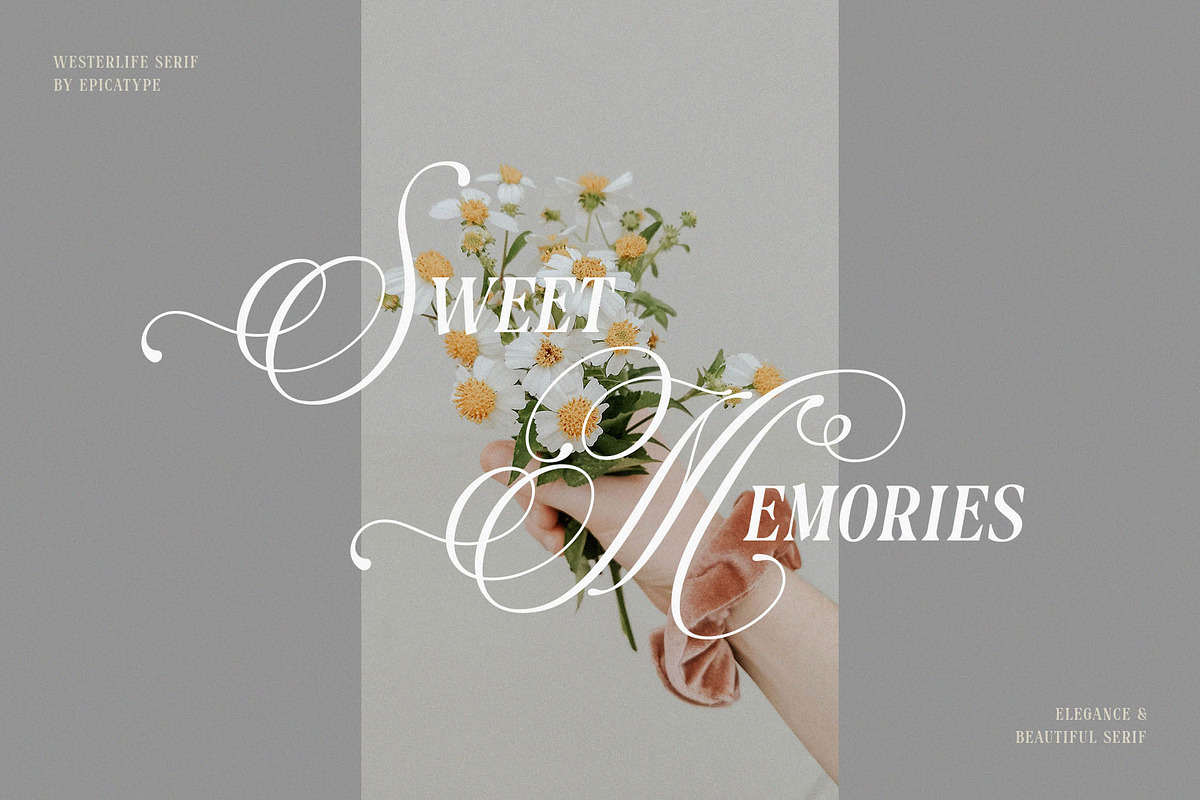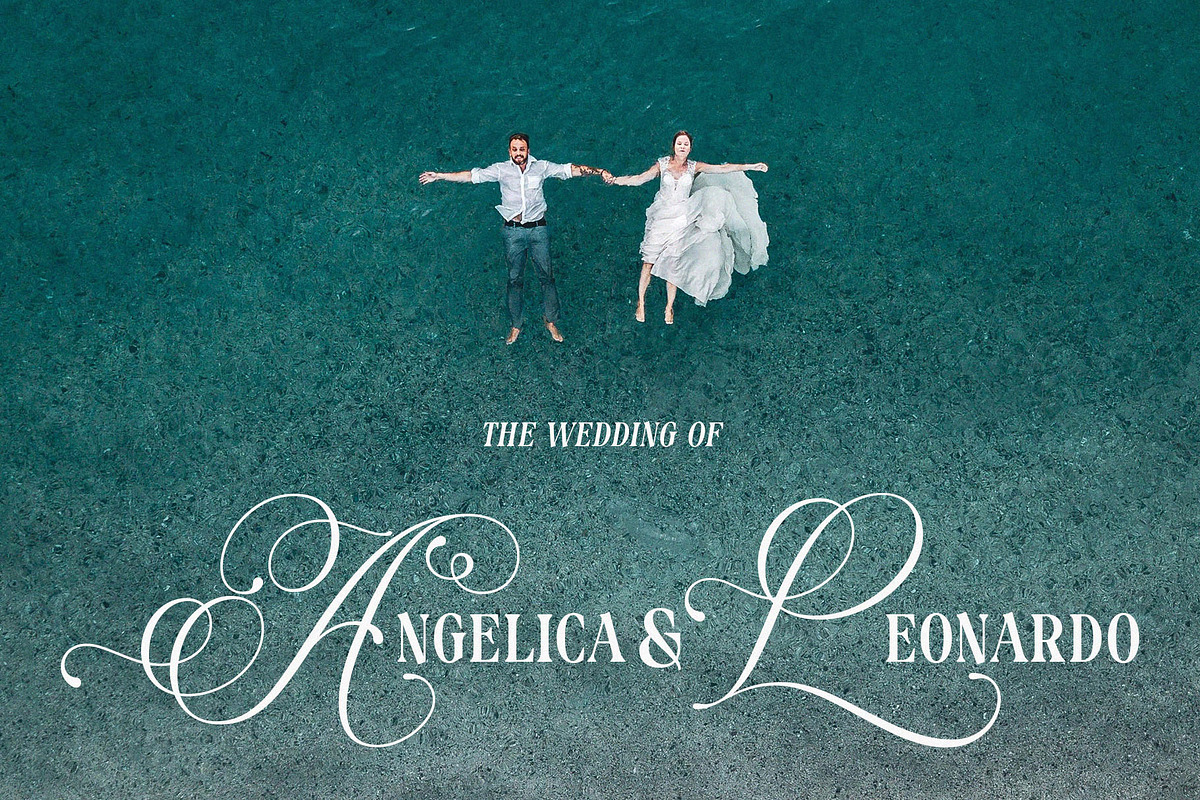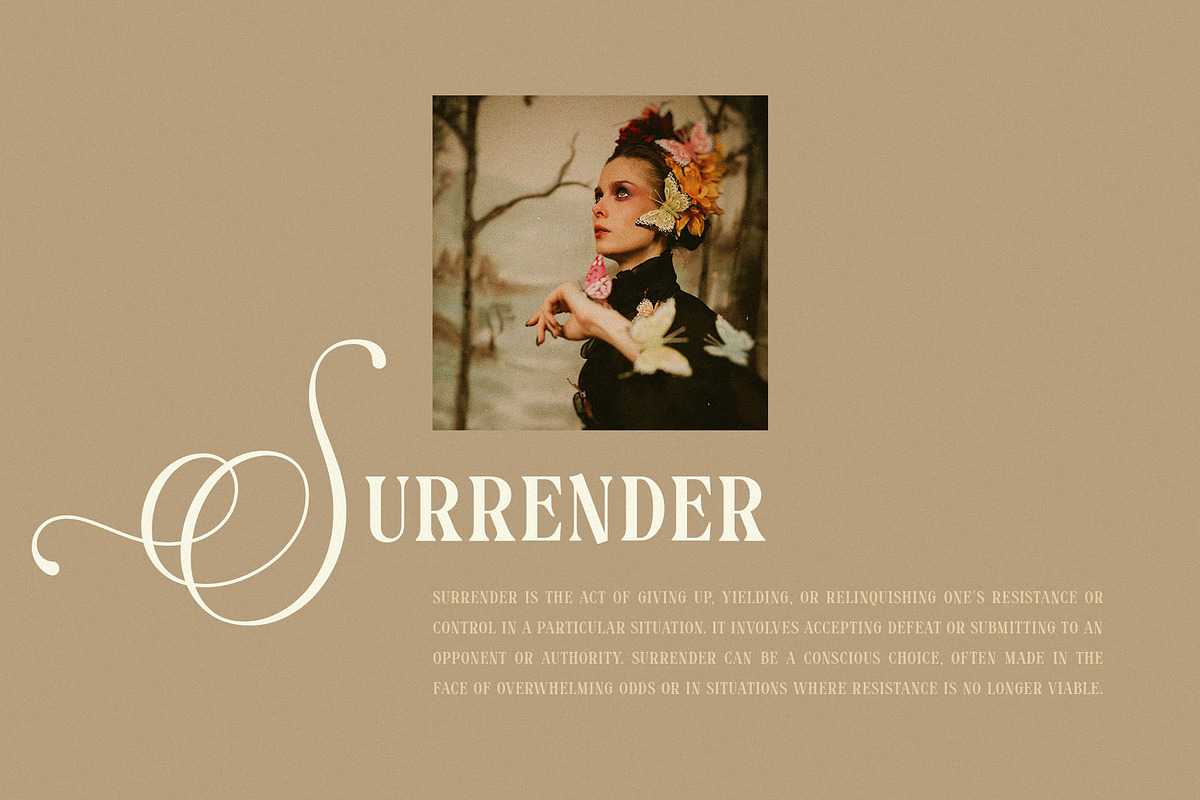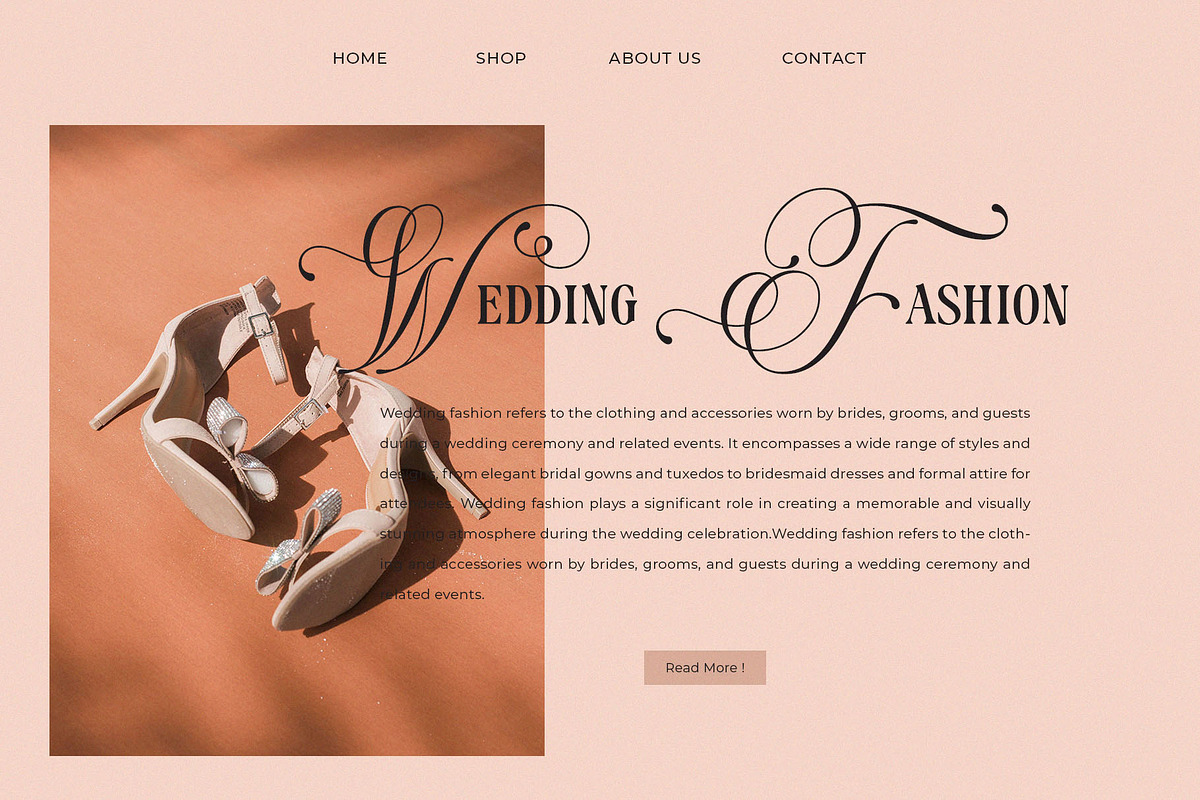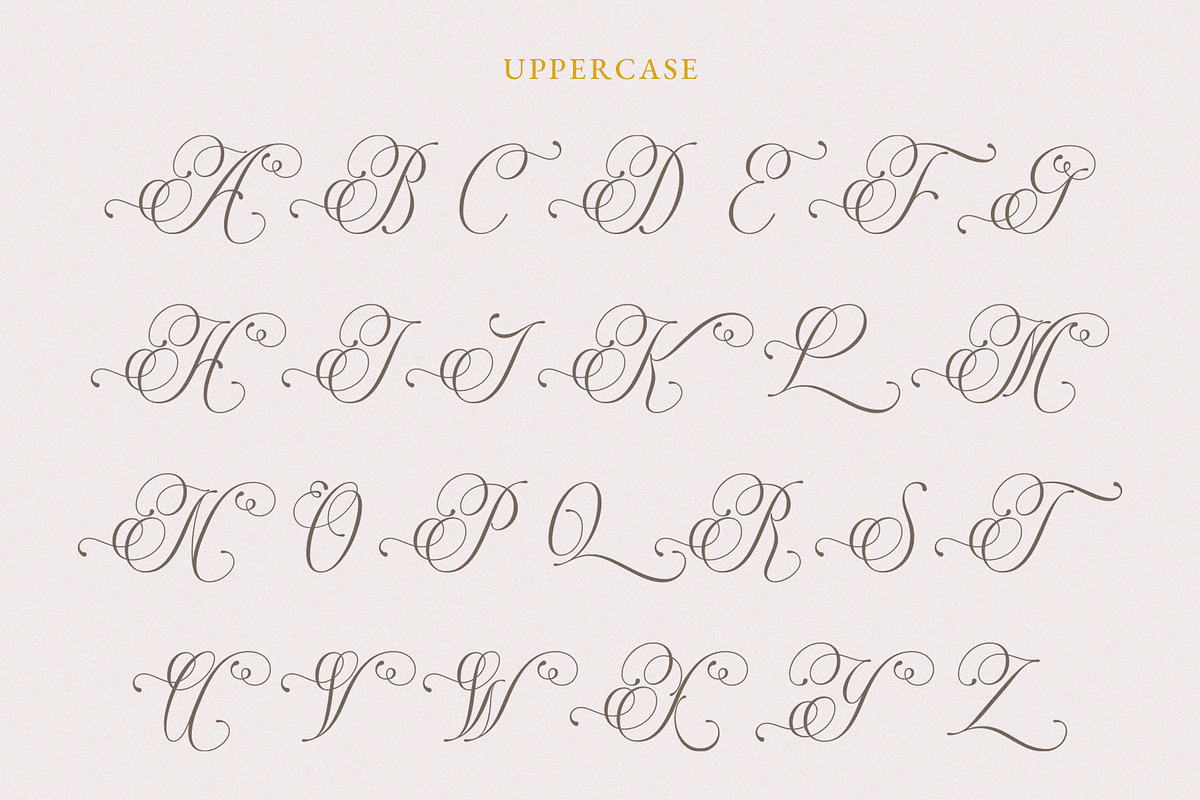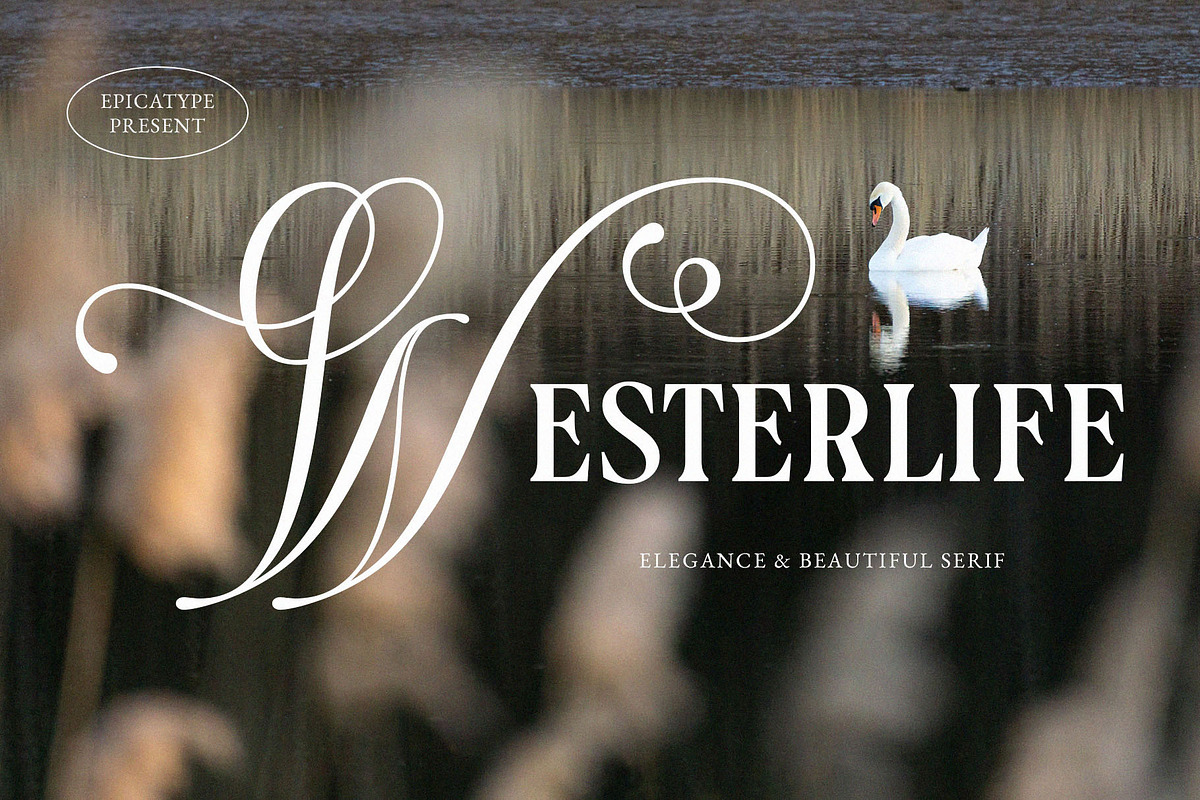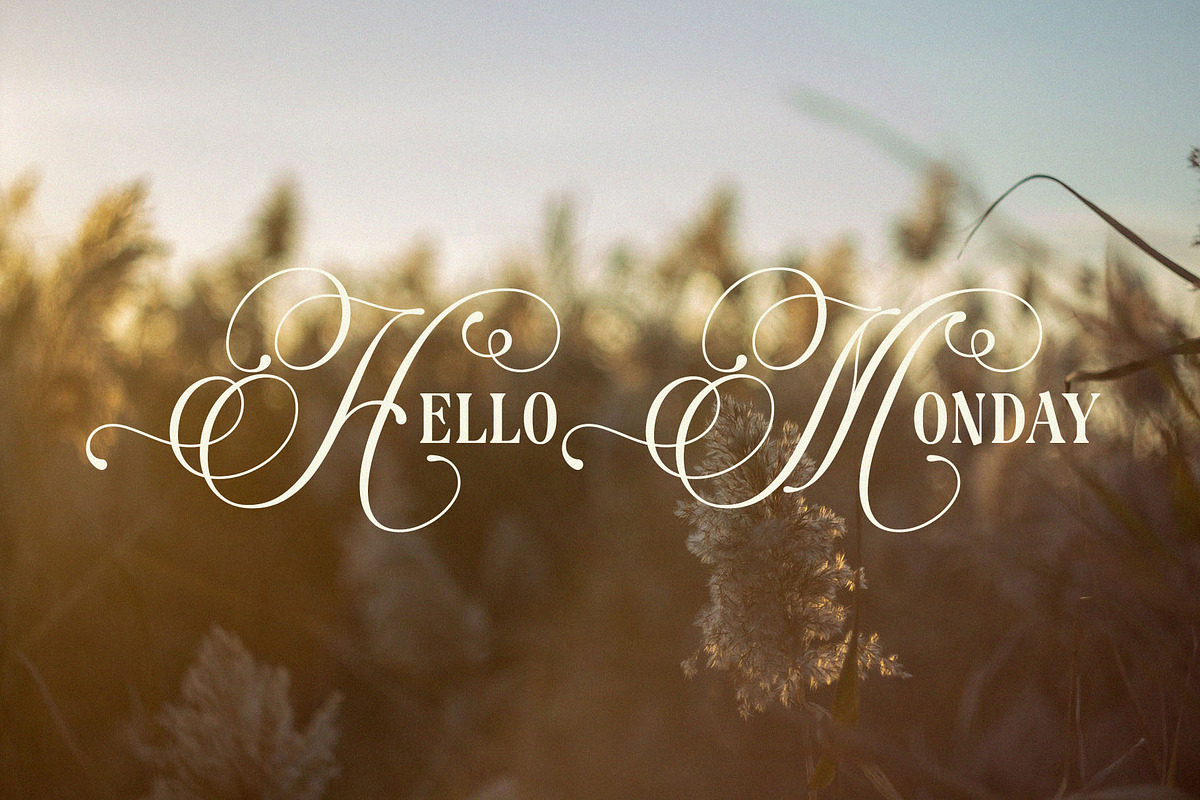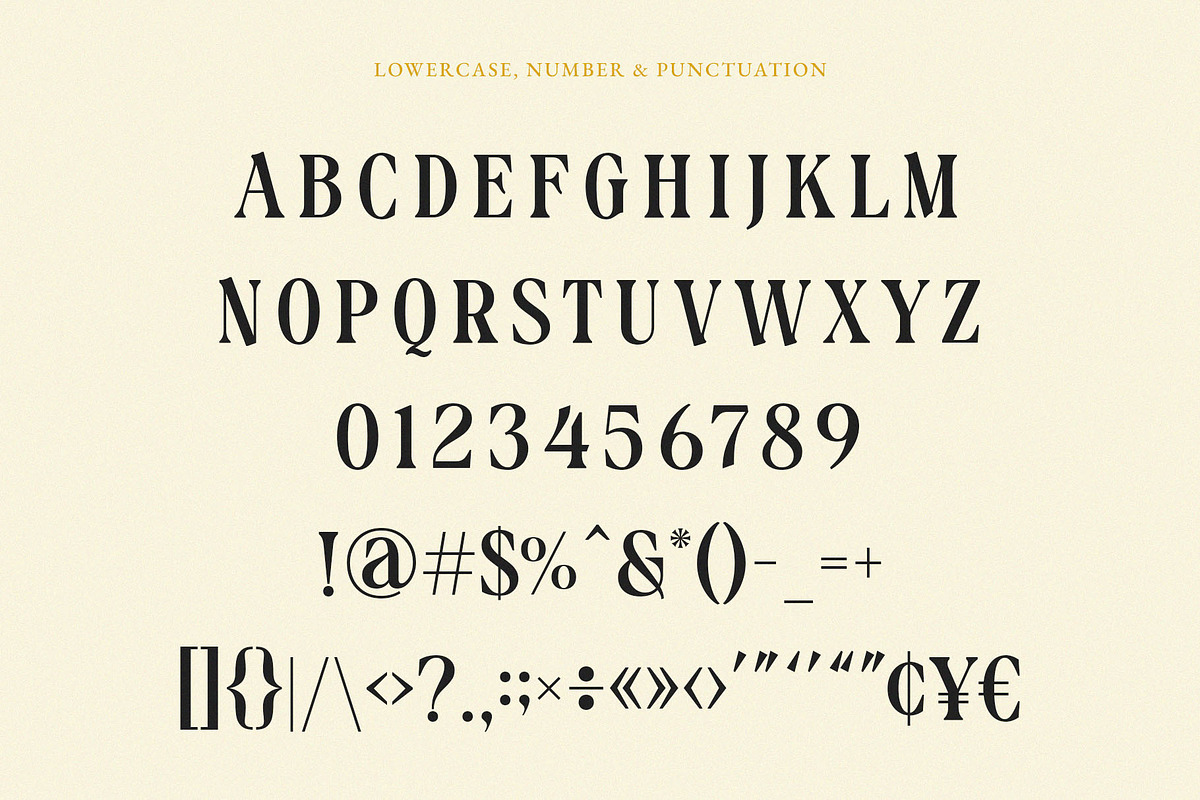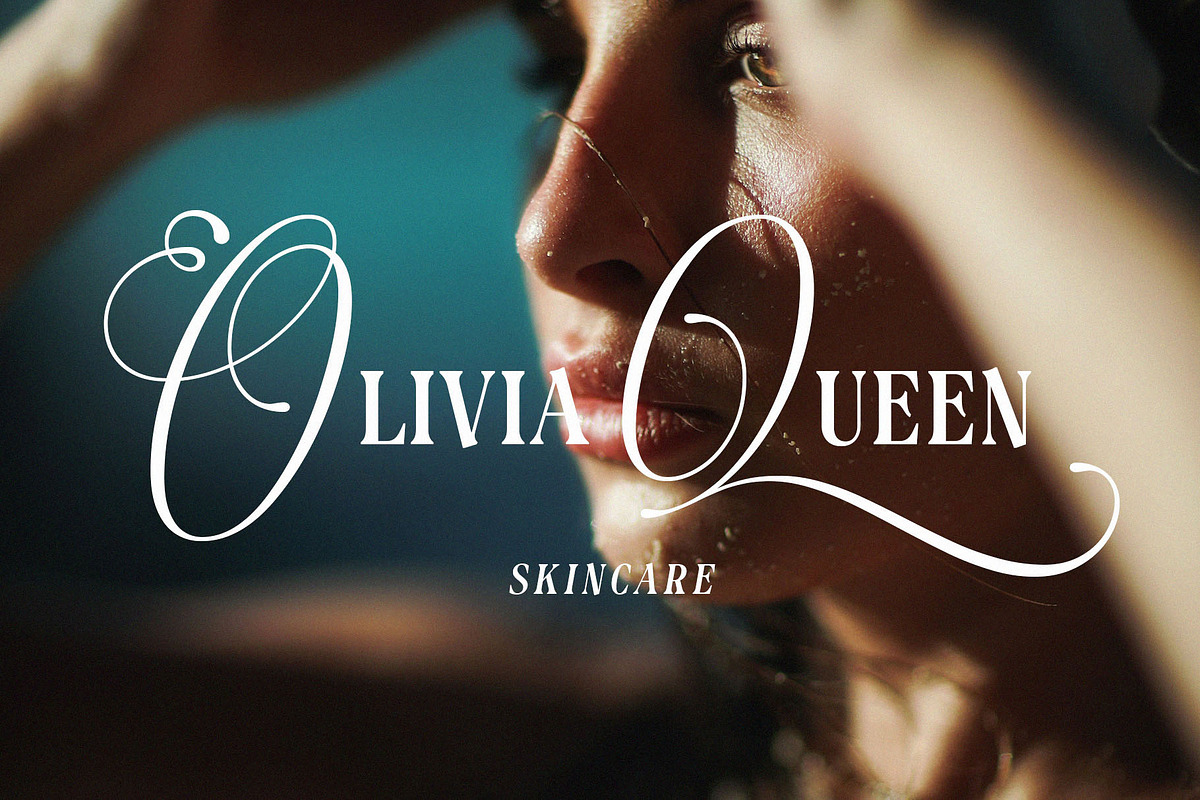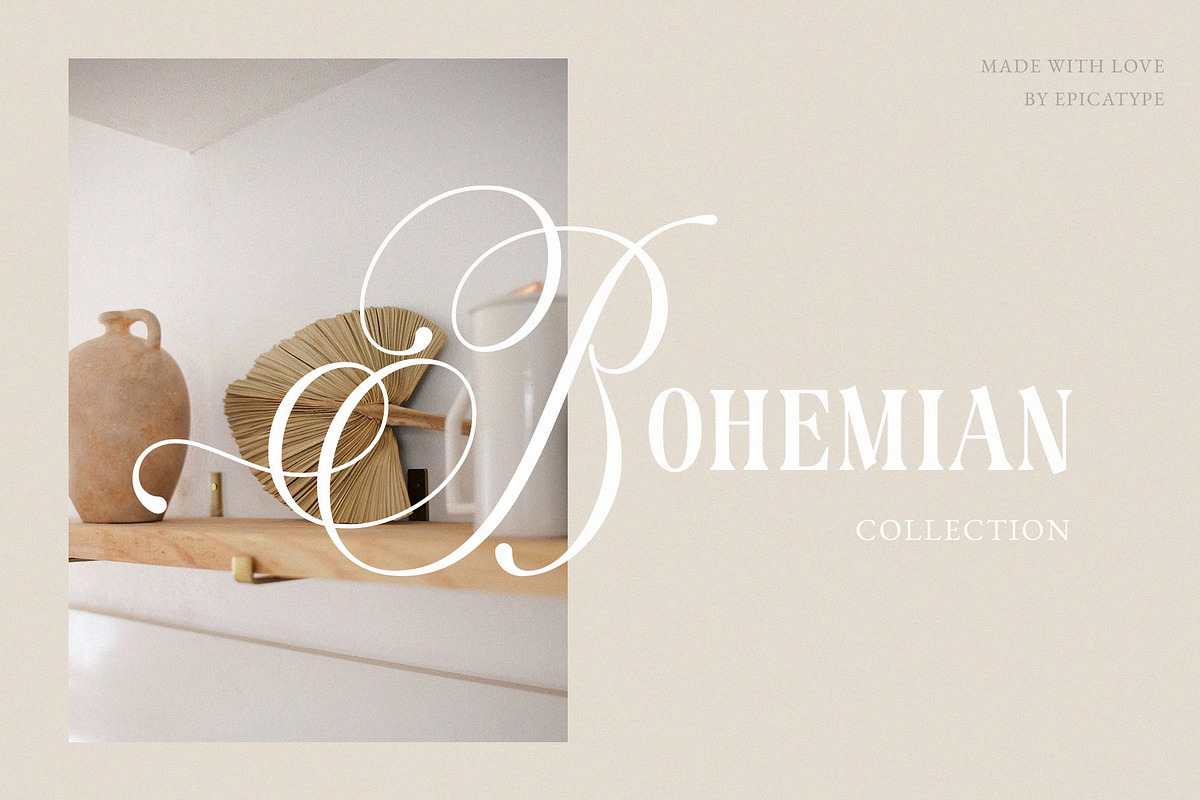
Westerlife - Elegance Serif
Hello, new elegance & beautiful serif called Westerlife!!! Westerlife is a stylish font that is both serif and script font. Works great for logos, magazine, social media. It come with a unique lower and uppercase plus numbers, punctuation & multilingual letters, alternates and ligatures.